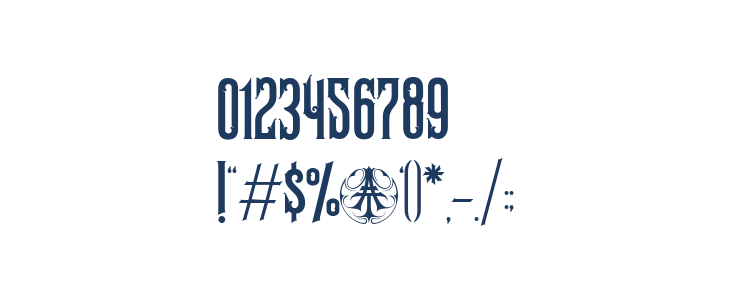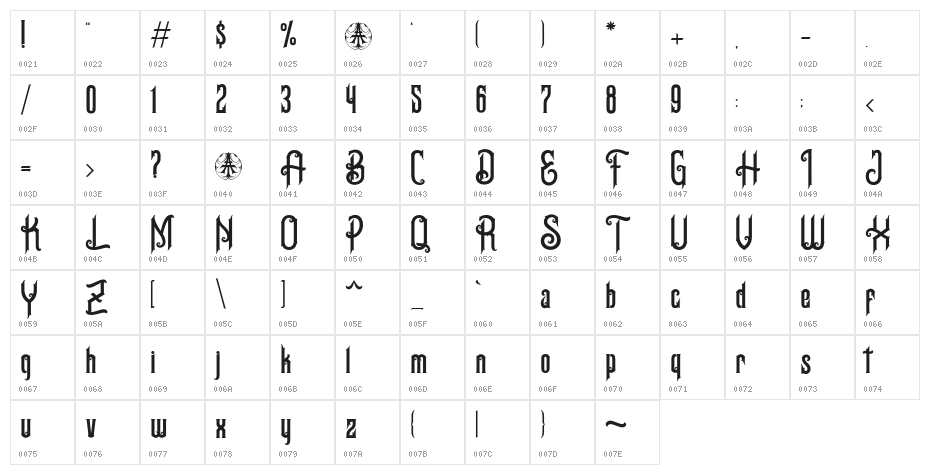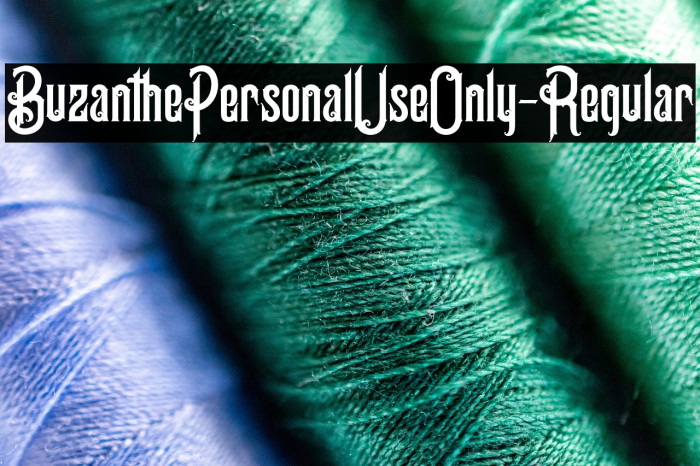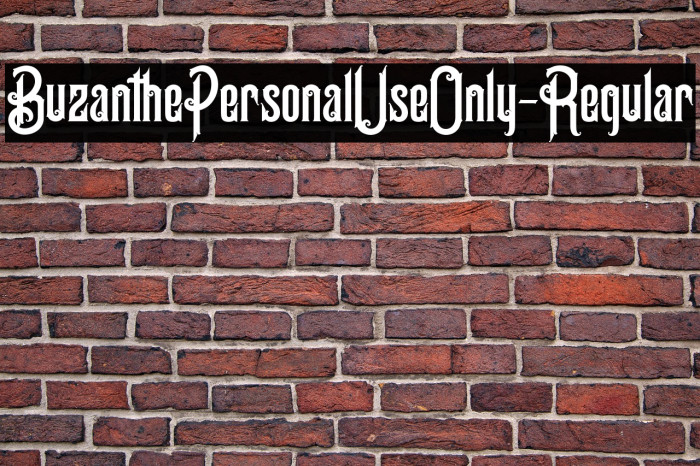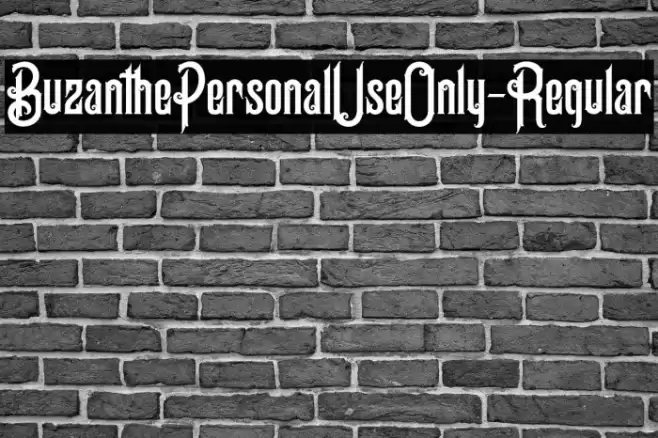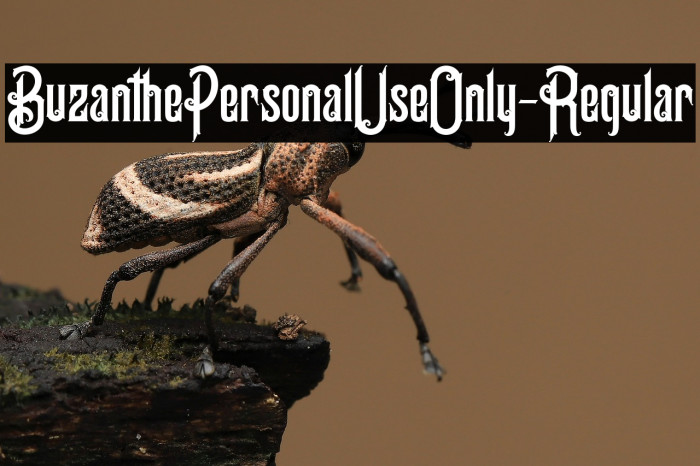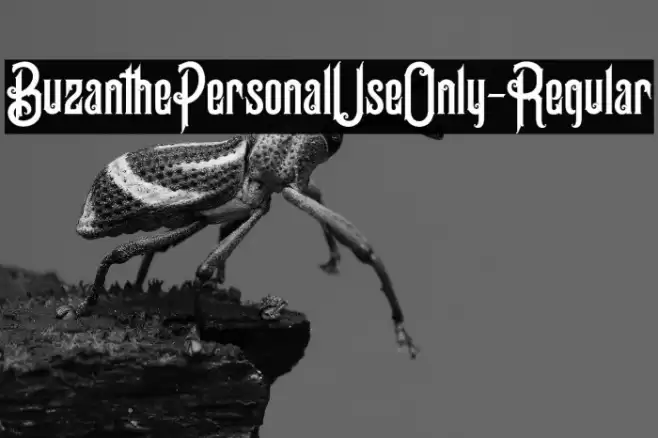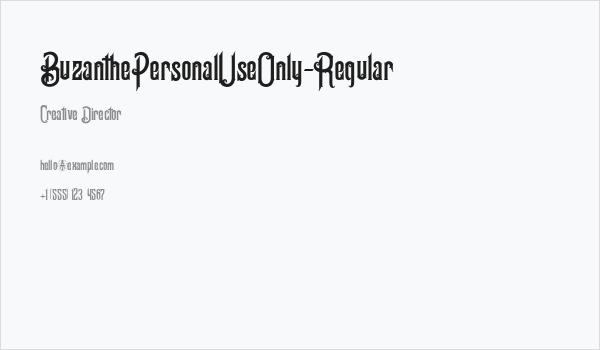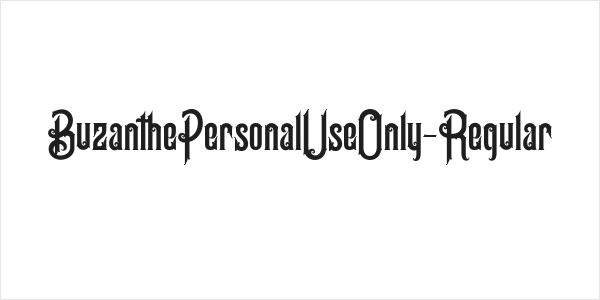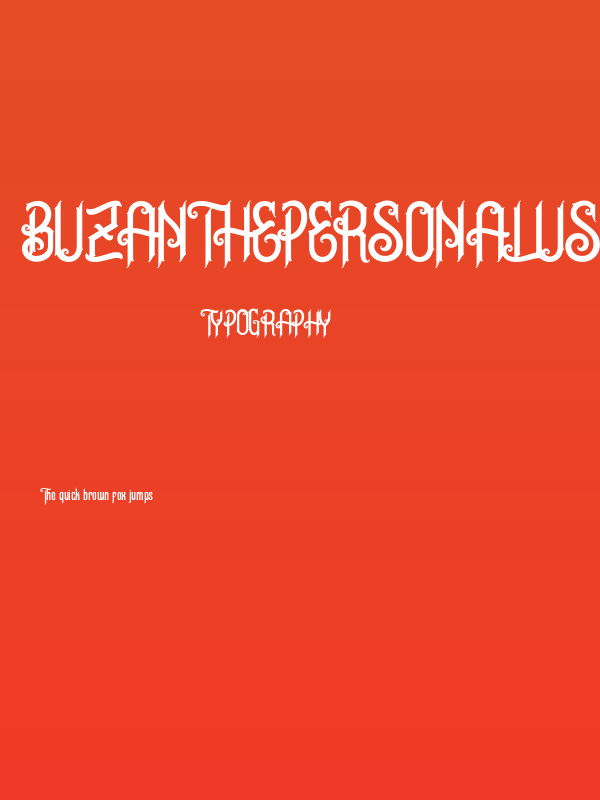
BuzanthePersonalUseOnly-Regular Font
BuzanthePersonalUseOnly-Regular Description
This font features an intricate and ornate design, characterized by its decorative and elaborate letterforms. The uppercase letters are particularly embellished with flourishes and curves, giving it a distinct Gothic or medieval appearance. The lowercase letters maintain a similar style but with slightly less ornamentation, ensuring readability. The numbers and special characters are designed to match the overall aesthetic, with unique and artistic elements that make them stand out. This font's bold and dramatic style makes it suitable for projects that require a strong visual impact.
| Overall Style | Gothic, Decorative |
| Proposed Projects | Ideal for use in fantasy-themed designs, book covers, posters, or any project requiring a medieval or Gothic aesthetic. |